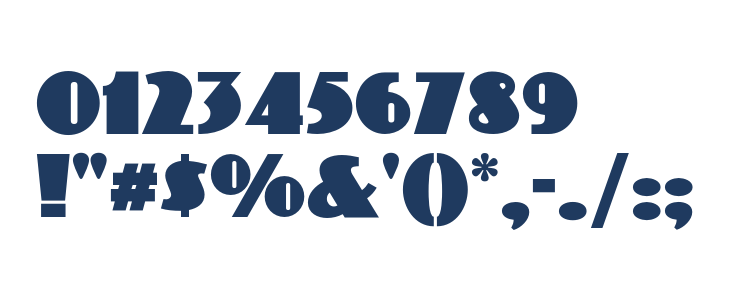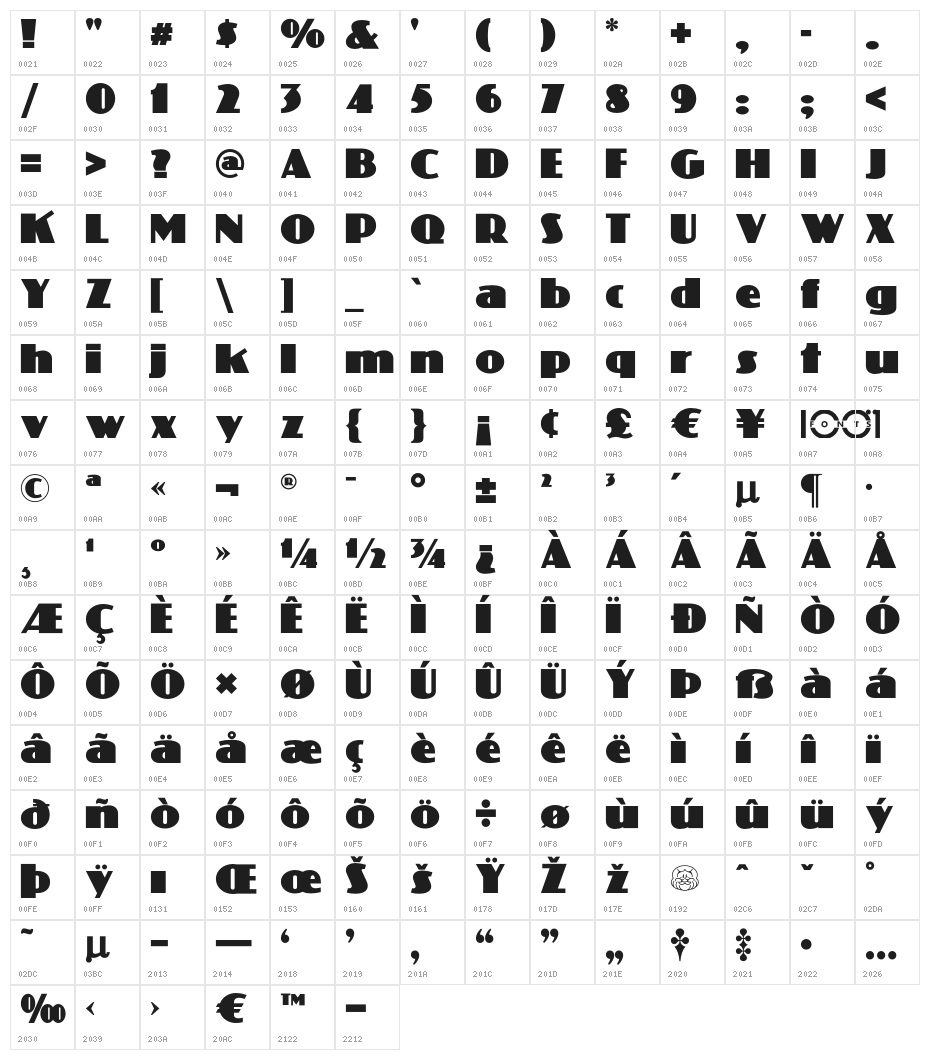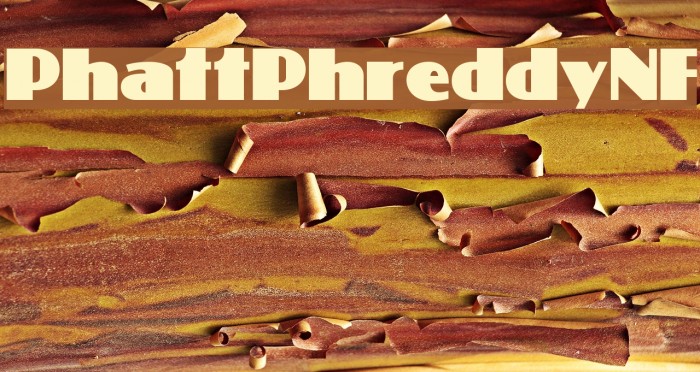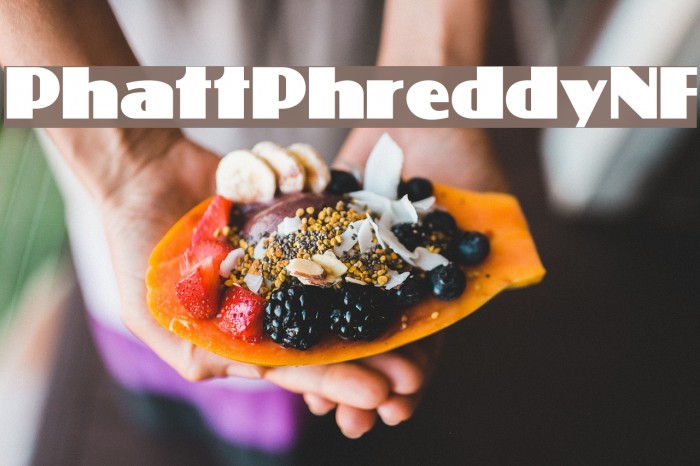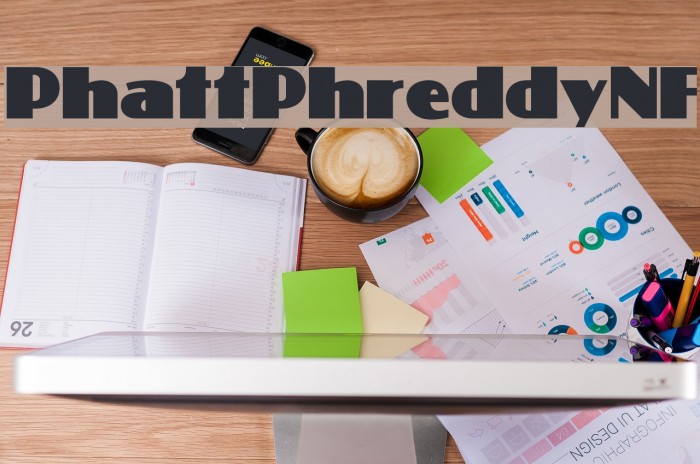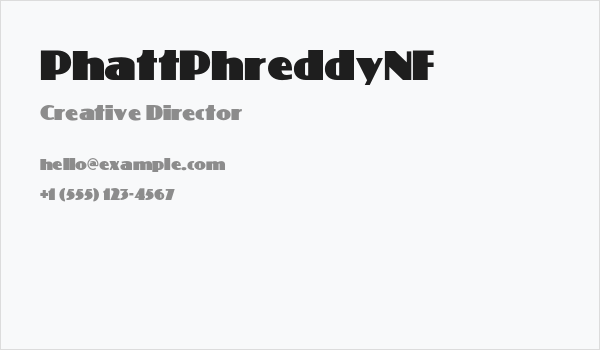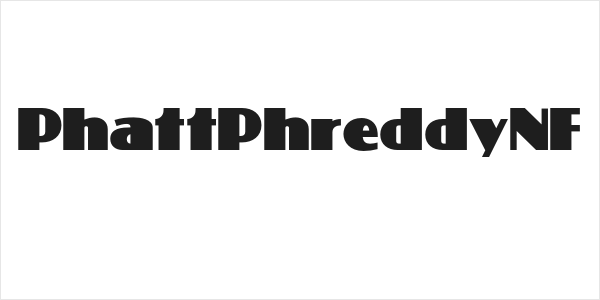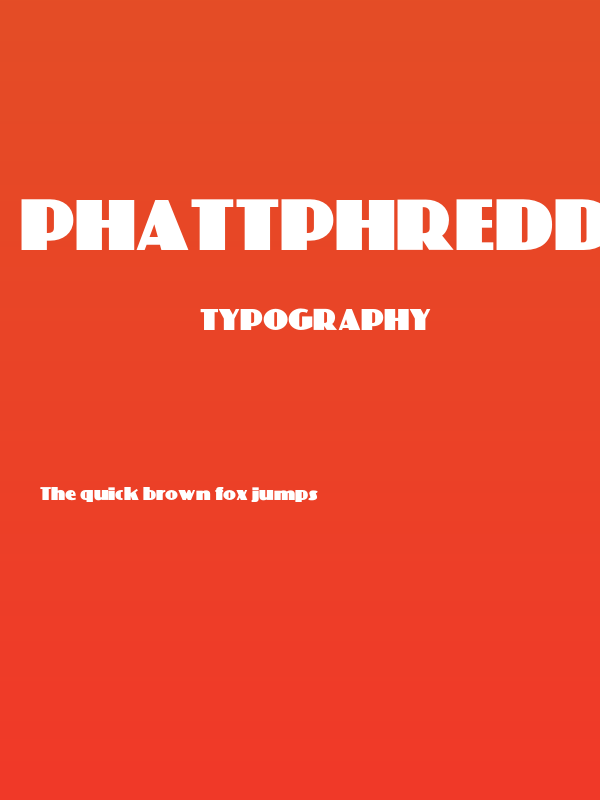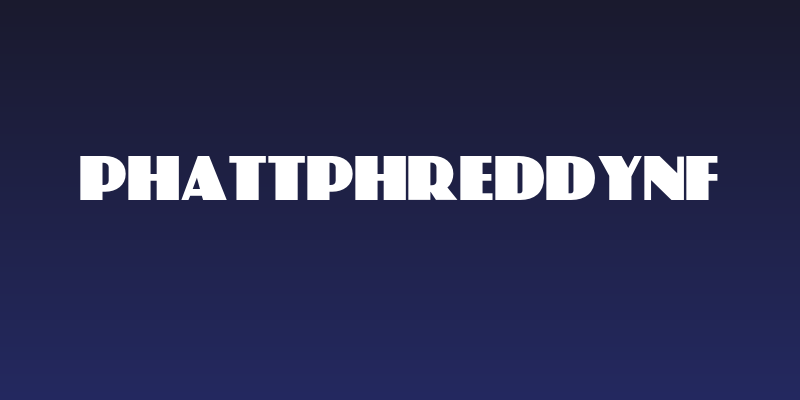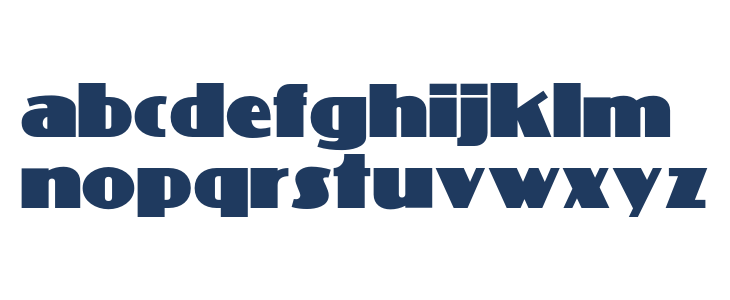
PhattPhreddyNF Font
PhattPhreddyNF Description
This font features bold, thick strokes with a strong presence, making it ideal for impactful designs. The characters are wide and have a slightly condensed appearance, giving them a robust and sturdy look. The uppercase letters are particularly striking, with a uniform height that enhances readability. The lowercase letters maintain the same boldness, ensuring consistency across different text sizes. Numbers and special characters are designed with the same weight and style, providing a cohesive look throughout. The overall design is modern and eye-catching, suitable for projects that require a bold statement.